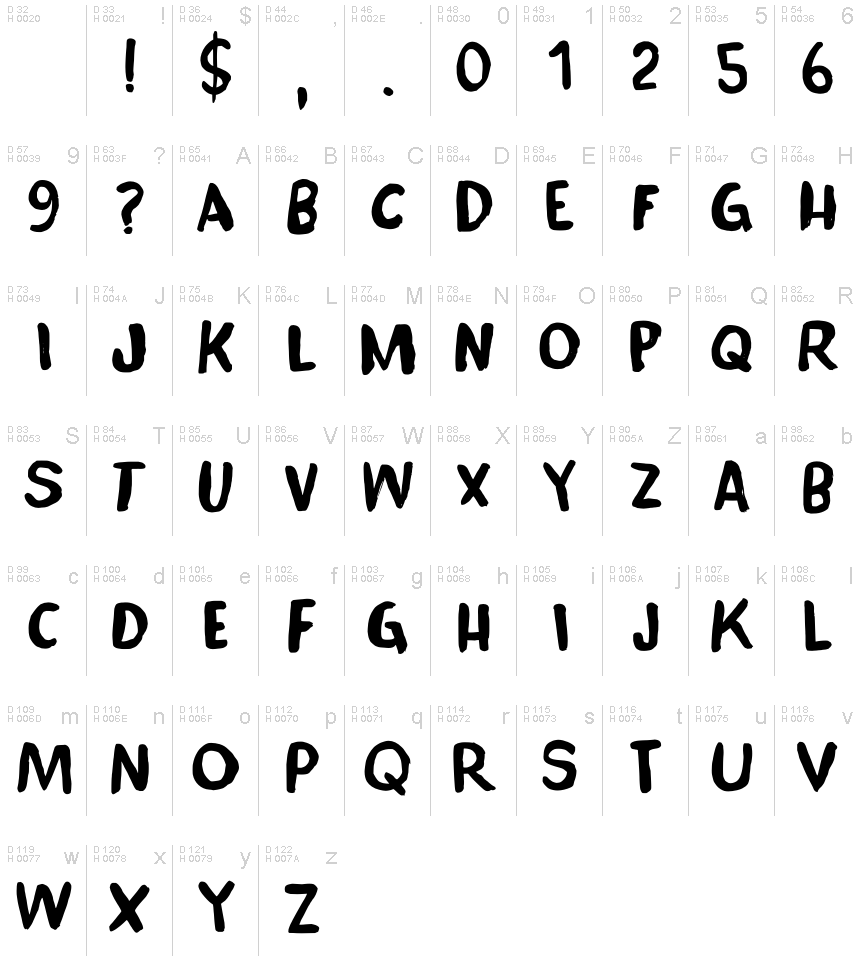
Broadcast Mayhem font by Hanoded is a striking brush-style, bold typeface that exudes energy and dynamism. Its bold strokes and playful character make it perfect for grabbing attention in any design project. The artistic flair of this brush font creates a sense of movement, making it ideal for headlines, posters, or any creative endeavor where impact is key.
عرض ونموذج مرئي لخط Broadcast Mayhem DEMO Regular
خريطة محارف خط Broadcast Mayhem DEMO Regular
خريطة محارف Broadcast Mayhem DEMO Regular: ‏الأساسية لاتينية، الصفحة 1
رموز خط Broadcast Mayhem DEMO Regular — ‏الأساسية لاتينية، الصفحة 1